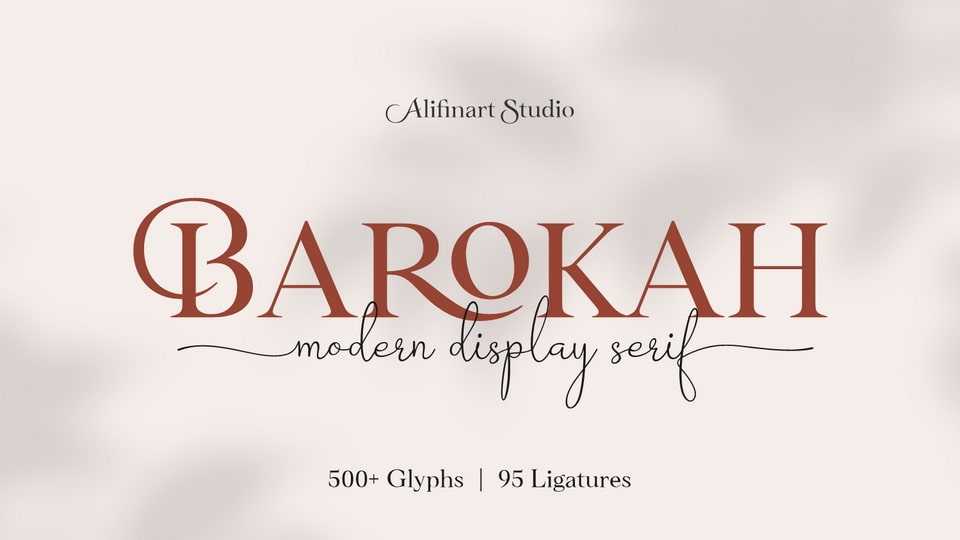
Download Barokah Serif font, a modern display typeface that has a lot of ligatures for uppercase and lowercase. Barokah Serif font is perfect for luxury projects and will keep your creativity flowing.
Designer: Alifinart Studio